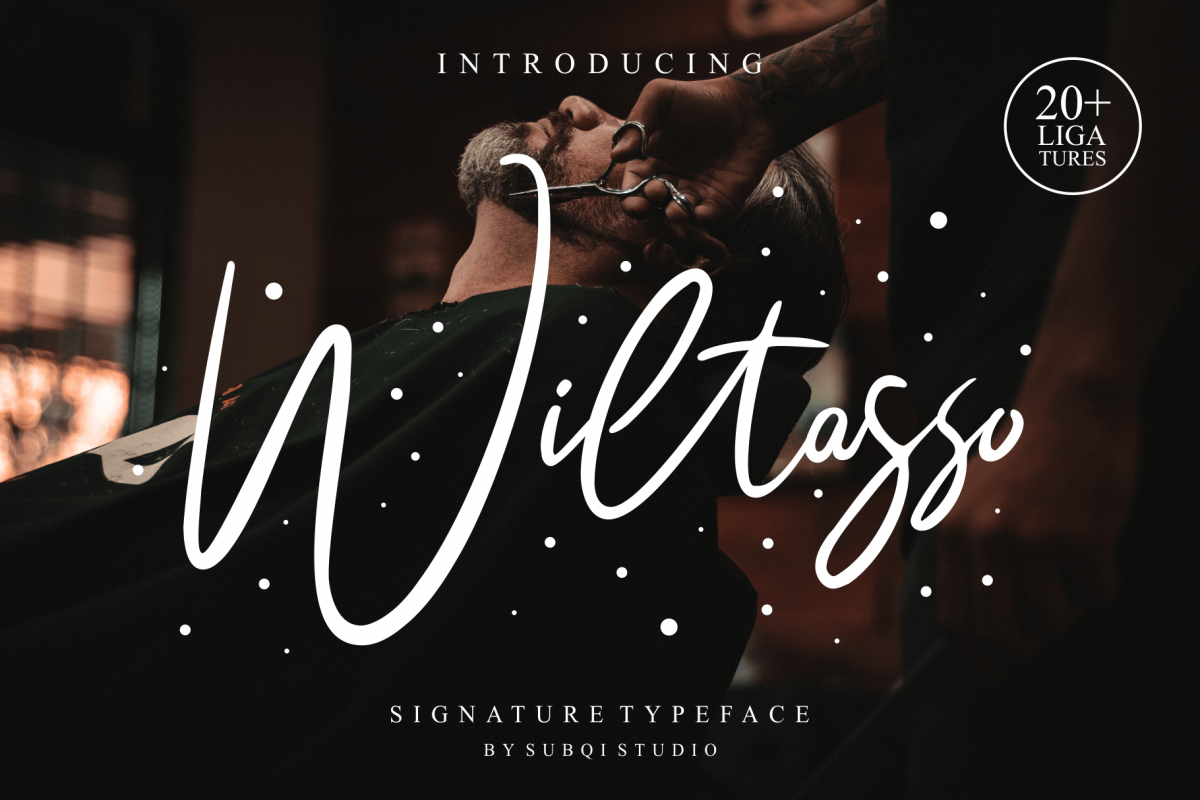
Wiltasso
Wiltasso-Regular
Introducing Wiltasso , a signature typeface. This font is made pure by handmade signature then . With our signature organic look. This font also contains with more than 20 ligatures. It'll be very suitable for your design needs.
• Ligatures ✔
• Stylistic Alternates ✔
MULTILINGUAL ACCENT
ŁłŽžŠŒšœŸÀÁÂÃÄÅÆÇÈÉÊËÌÍÎÏÐÑÒÓÔÕÖØÙÚÛÜÝßàáâãäåæçèéêëìíîïñòóôõöøùúûüýÿ